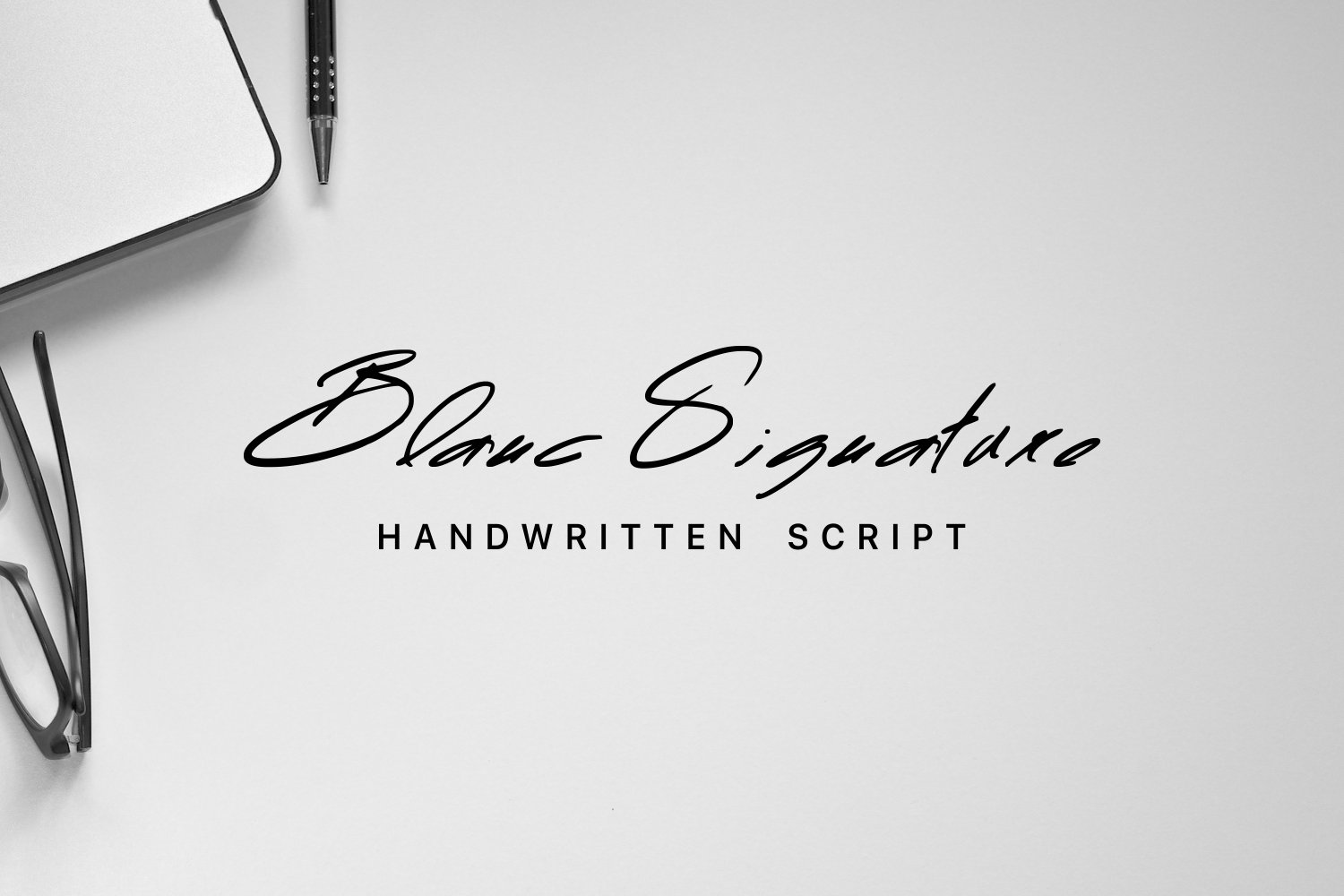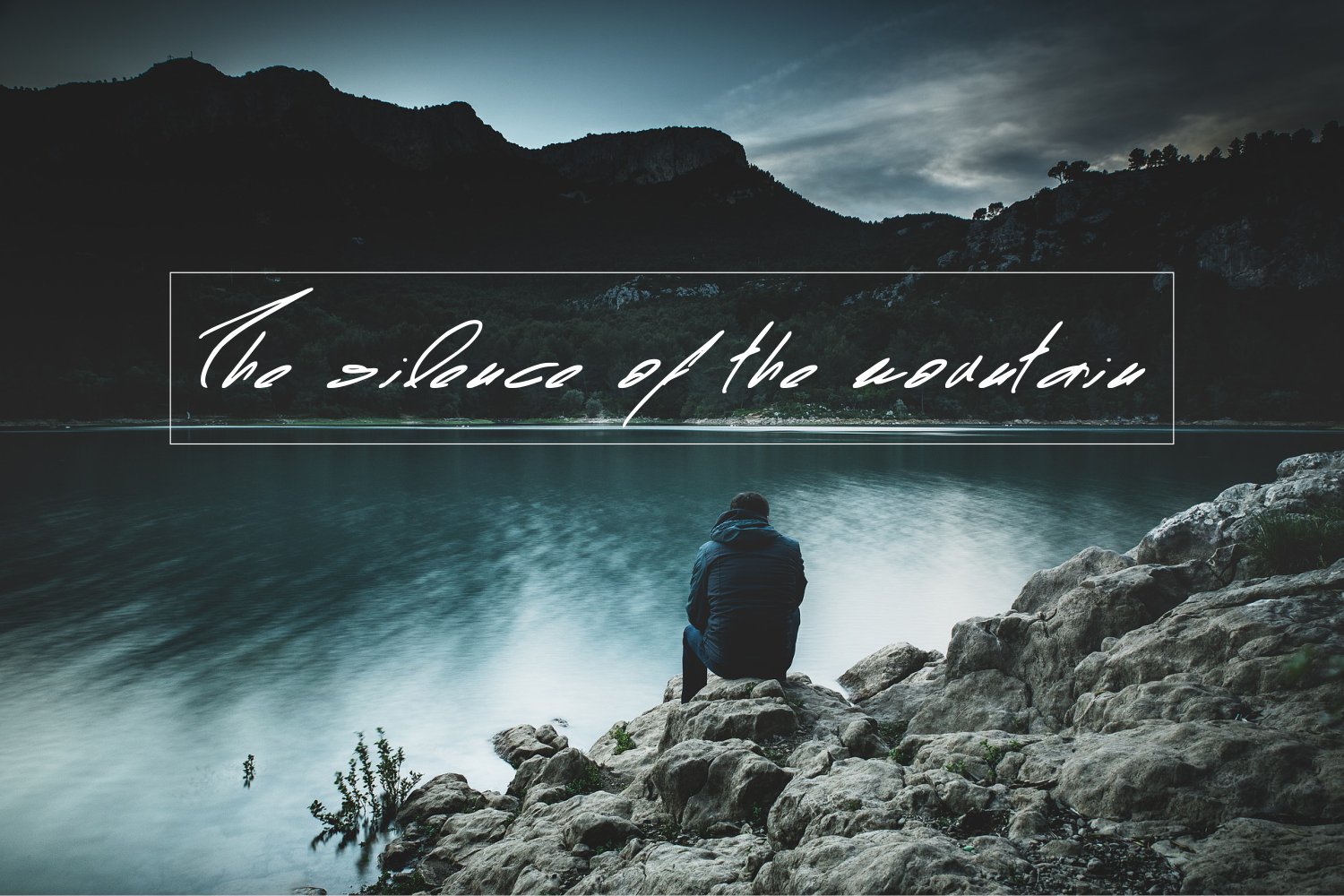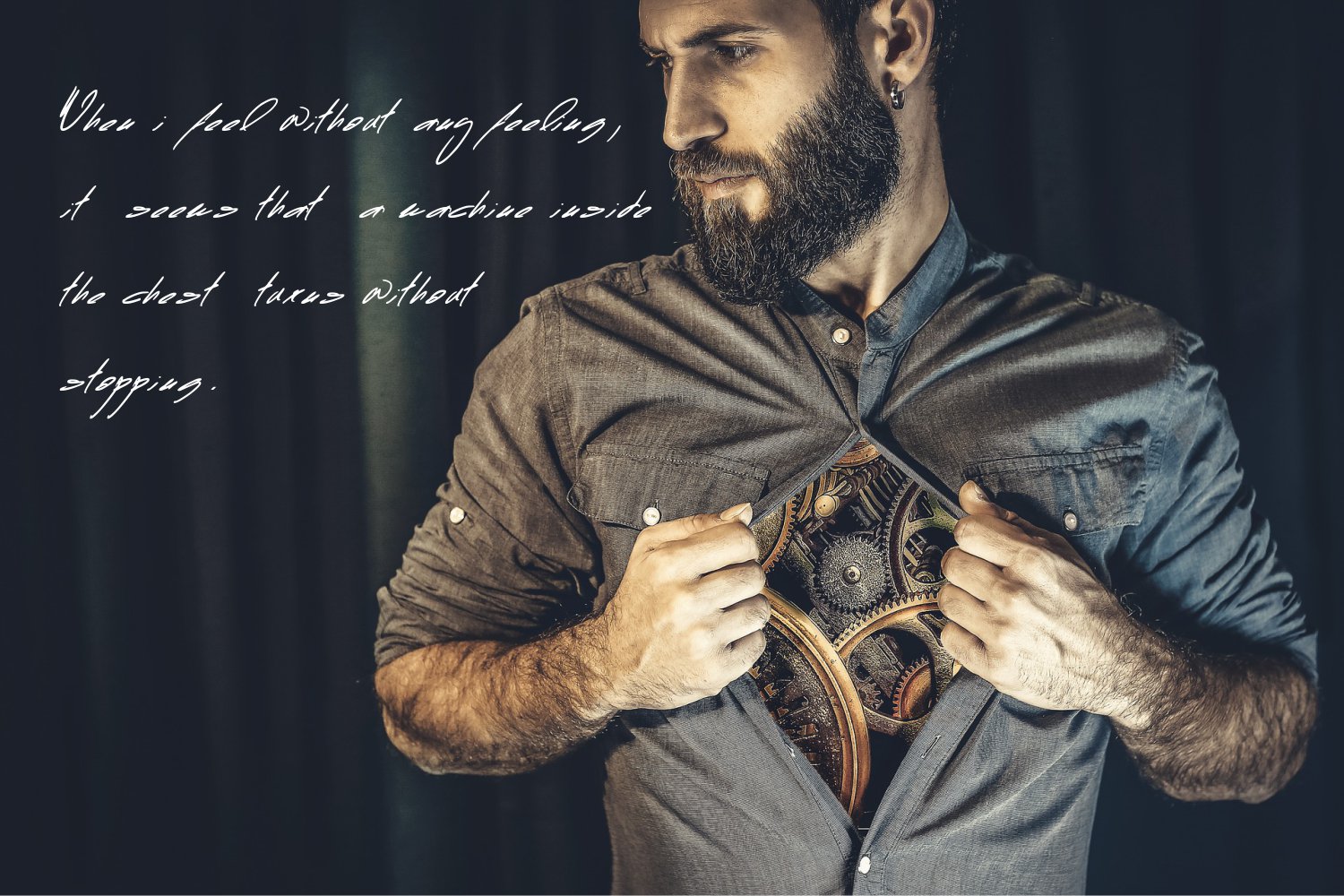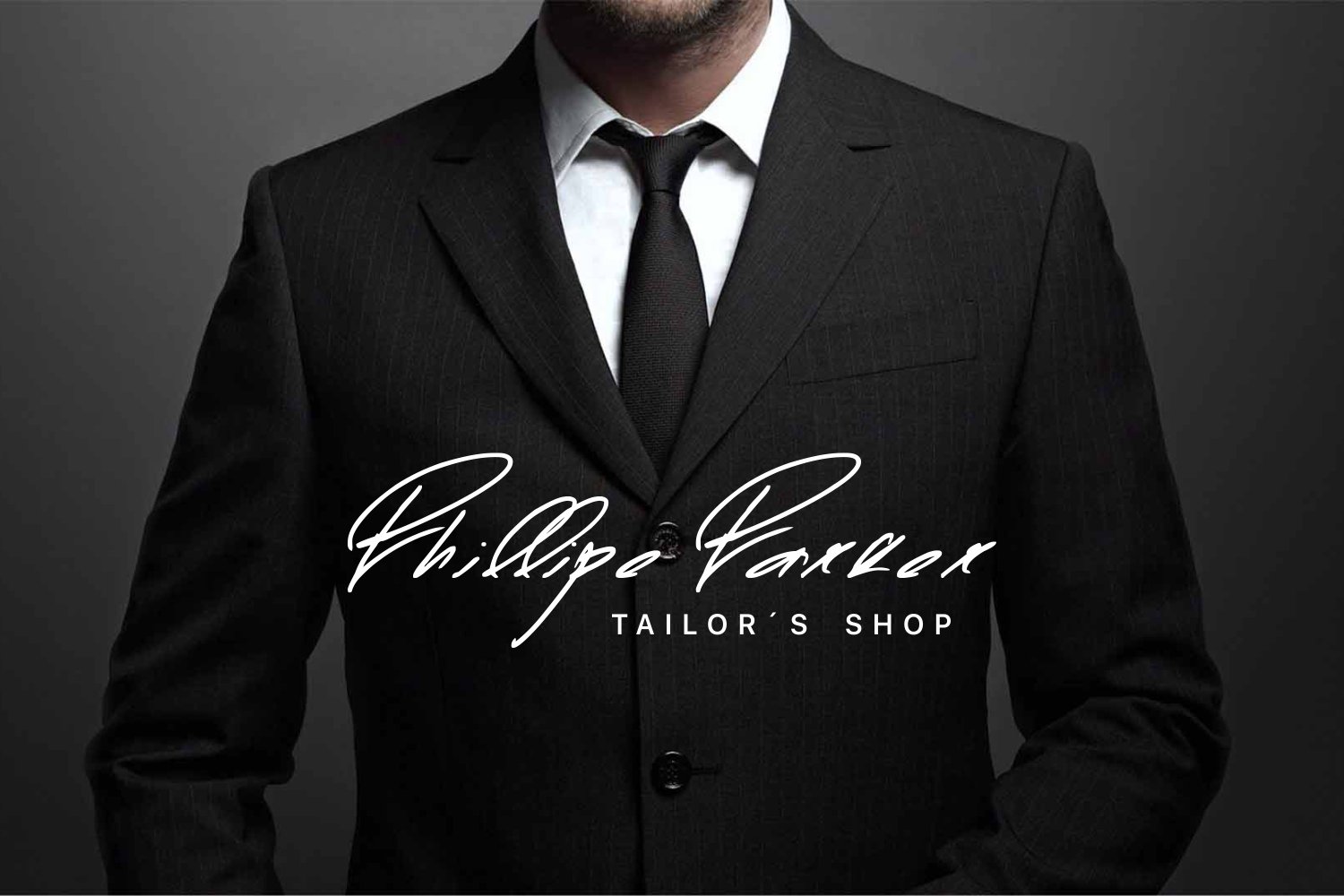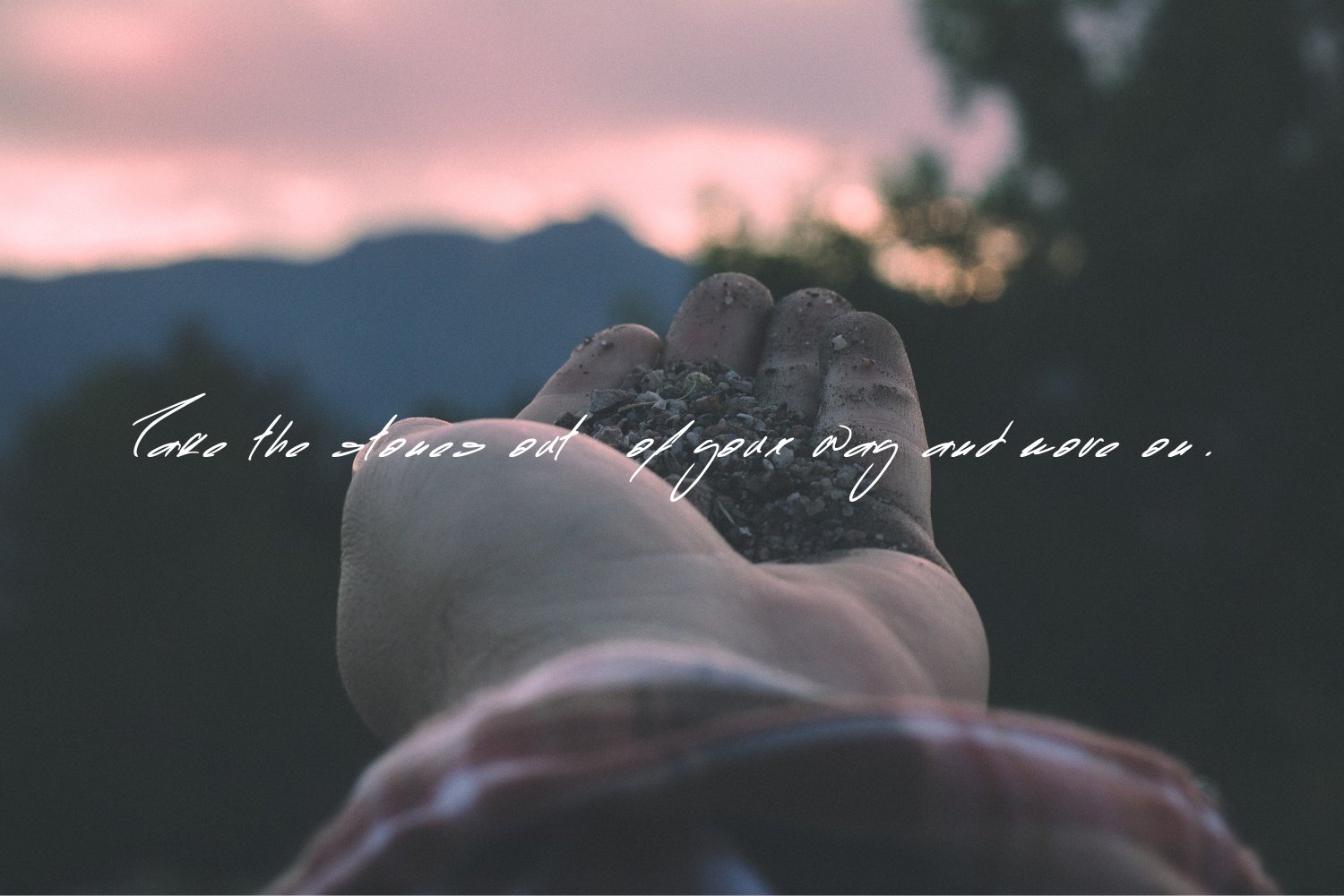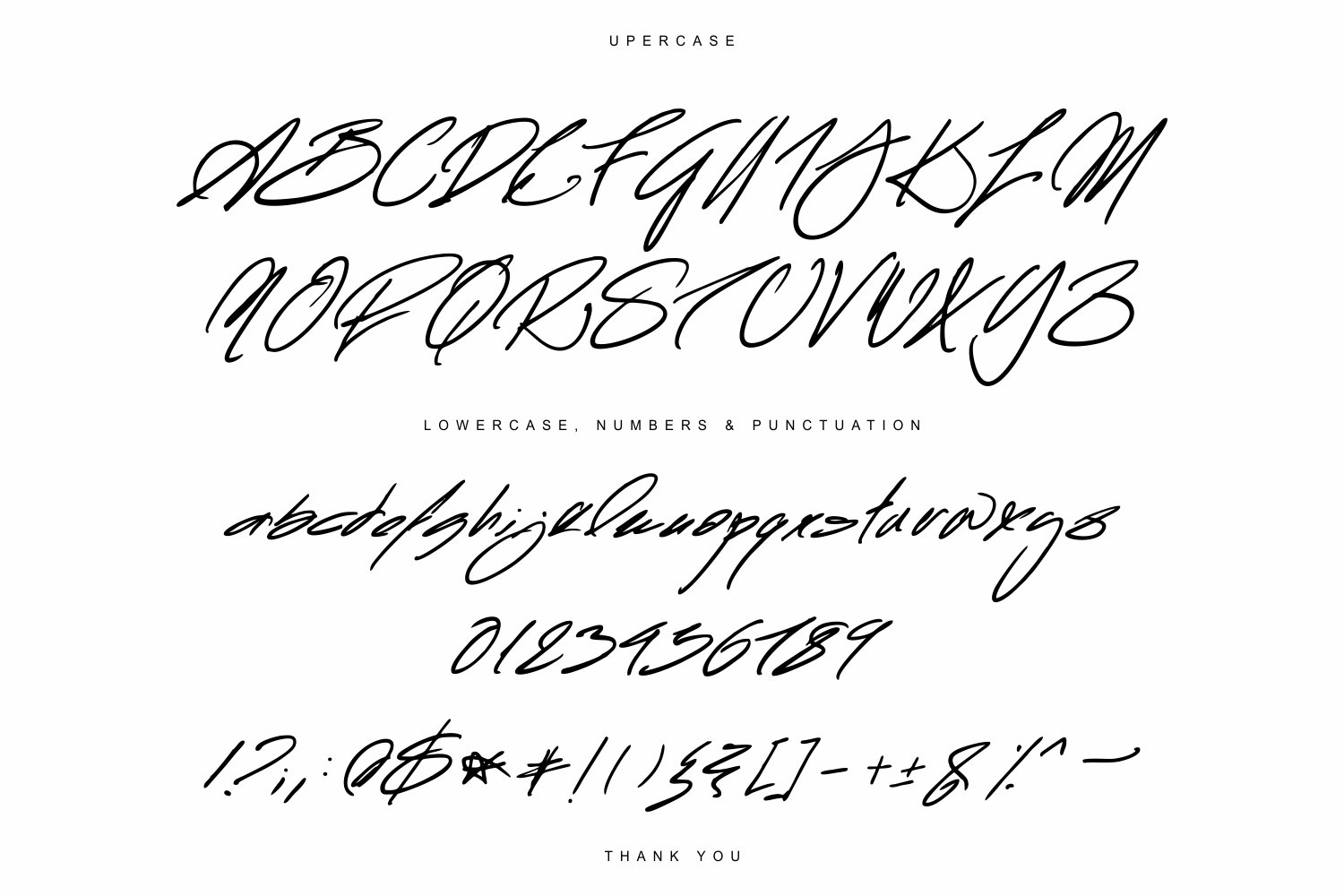
HomeScript FontsBlanc Font Script Fonts Blanc Font FacebookXPinterestWhatsApp Blanc Font Poster 2 Blanc Font Poster 3 Blanc Font Poster 4 Blanc Font Poster 5 Blanc Font Poster 6 About Blanc Font Blanc Signature – Is a hand-drawn script font that works great for logo signatures. DOWNLOAD NOW People also explored Sunblast Font Basiloca Font Spring Font Bitten Amore Font Sanctuary Font Montgo Font Skid Rock Font Allasant Font Kamuflase Font 290 0 TagsBlanc Font Previous articleCarlagata FontNext articleShella Font LEAVE A REPLY Cancel reply Comment: Please enter your comment! Name:* Please enter your name here Email:* You have entered an incorrect email address! Please enter your email address here Website: Save my name, email, and website in this browser for the next time I comment. Personal Use Free Cranberry Gin Personal Use Free Read more about this font Relic Island 2 Personal Use Free Read more about this font Crellia Script Personal Use Free Read more about this font Aseline Personal Use Free Read more about this font BLOG Free vs Paid Fonts: Why Investing in Premium Fonts Is Worth It Free vs Paid Fonts: Why Premium Fonts Are Worth It in 2025 The debate of free vs paid fonts continues in the design world. While... Modern Sans-Serif Fonts That Brands Love in 2025 Top 7 Google Fonts Alternatives for Faster and Privacy-Friendly Web Design (2025) Best Fonts for YouTube Videos: Make Your Thumbnails Stand Out